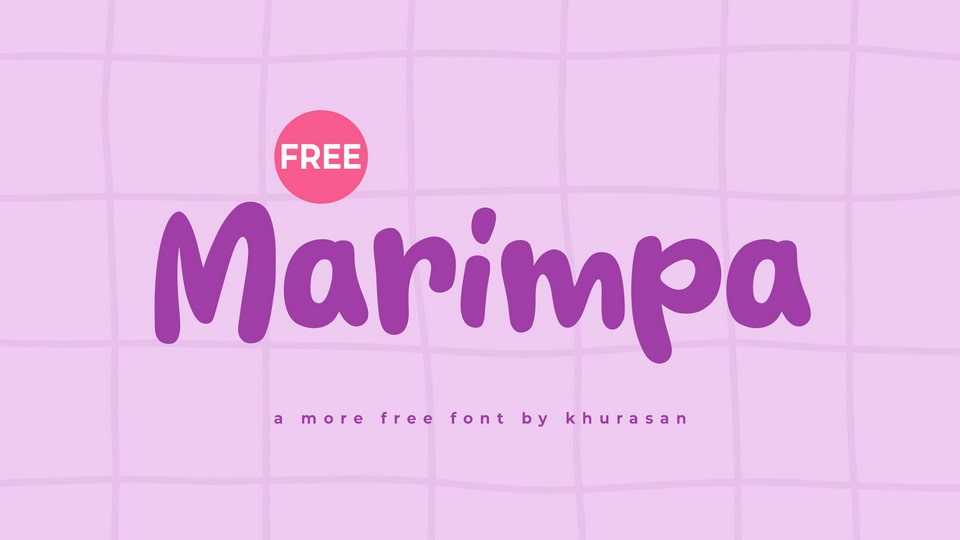
Download Marimpa font, a playful and cute hand-drawn comic typeface with smooth strokes and a friendly personality and its rounded shapes and flowing curves.